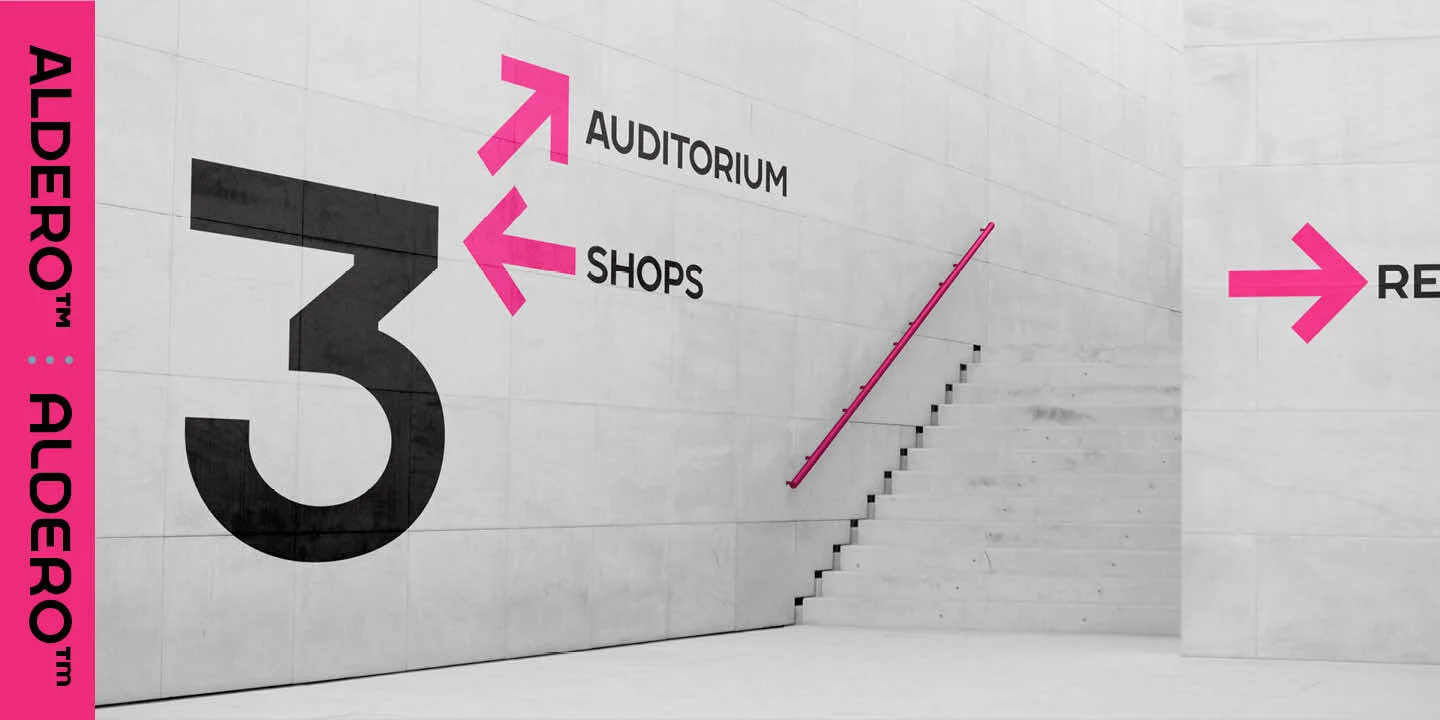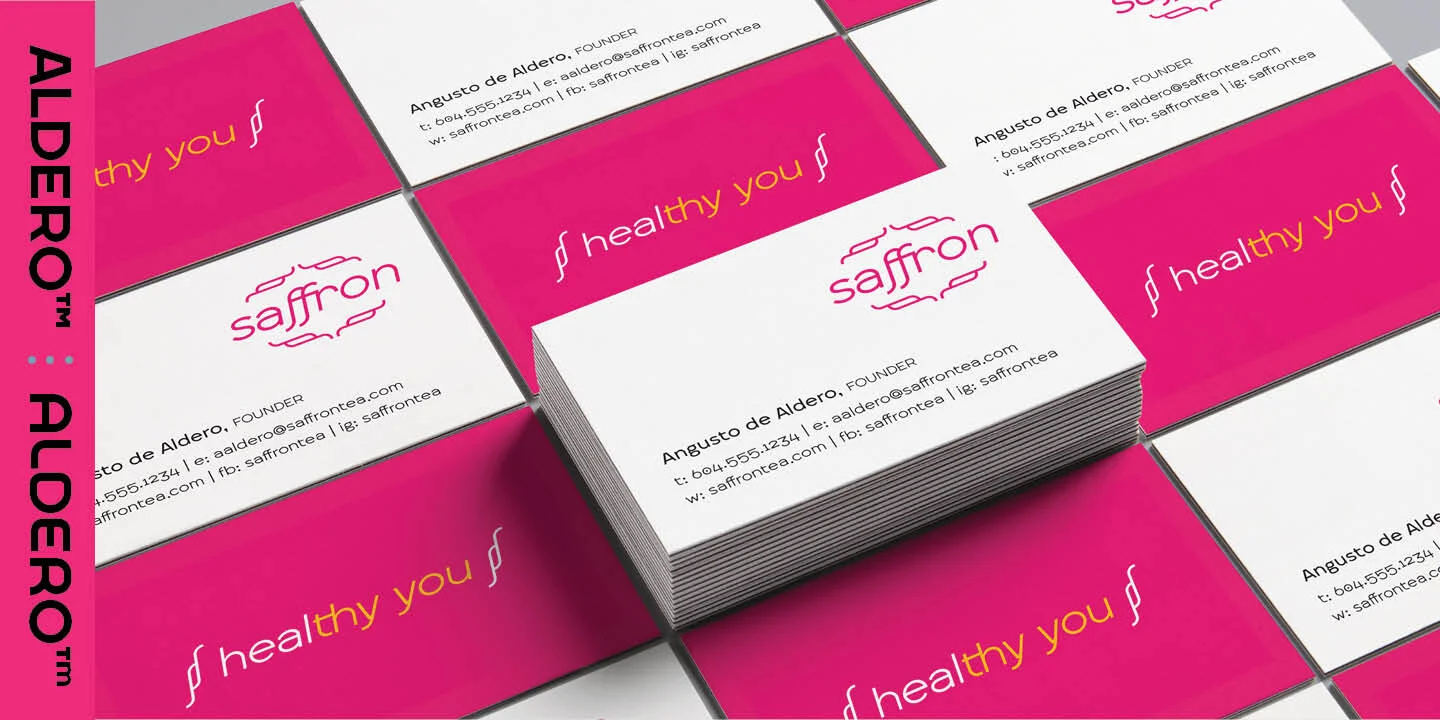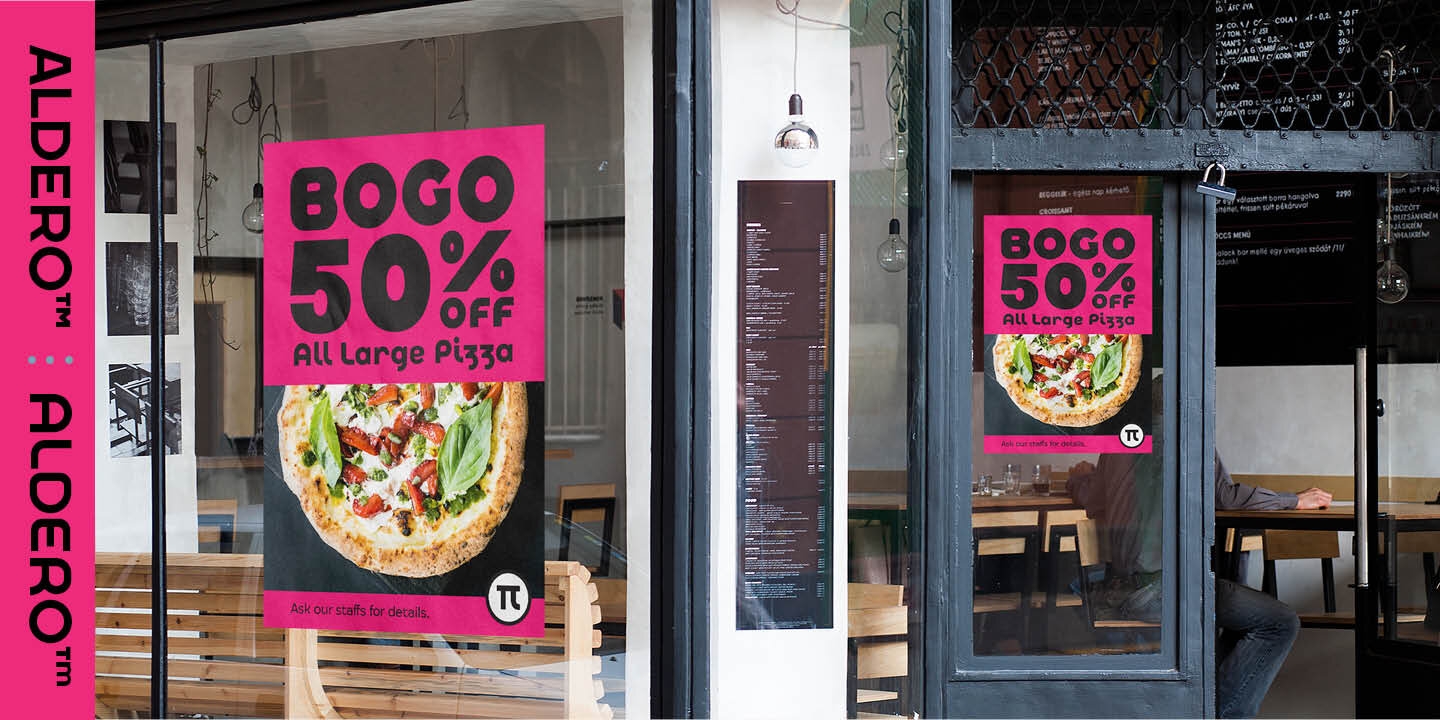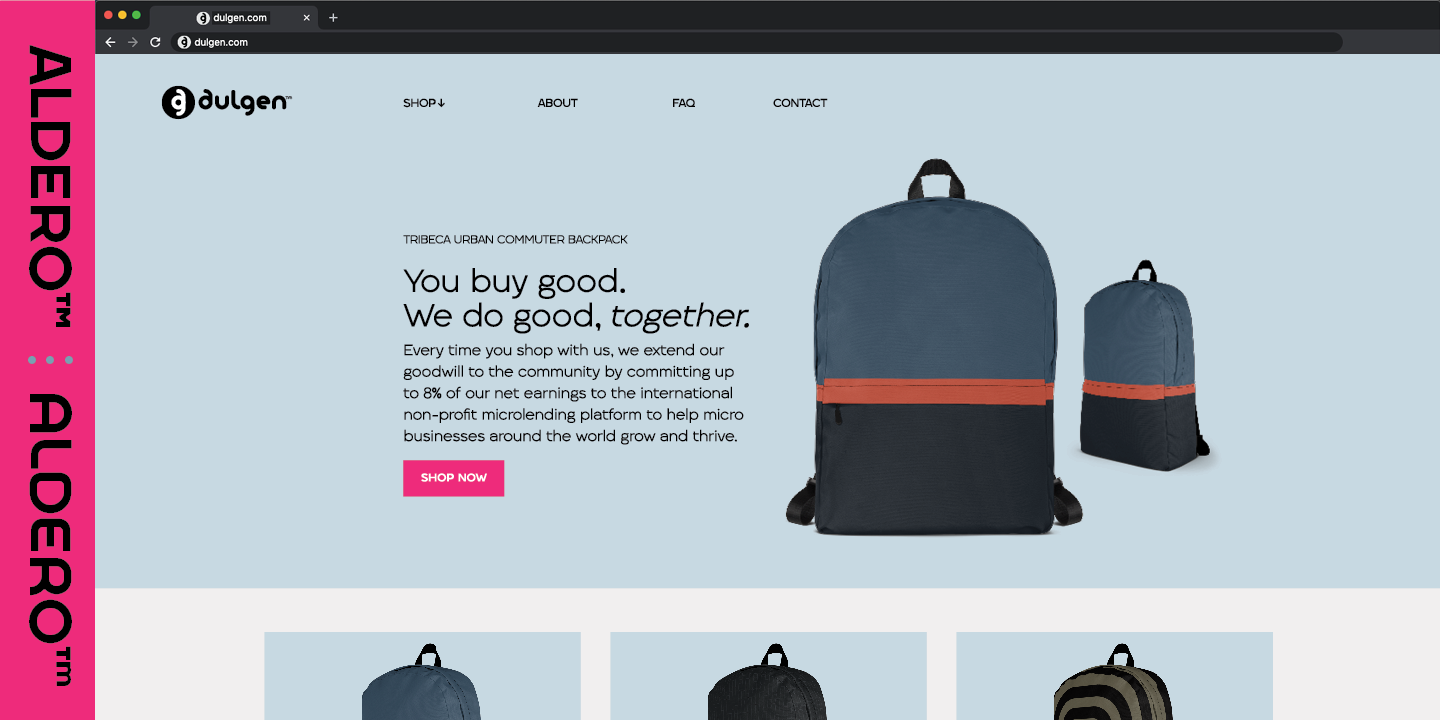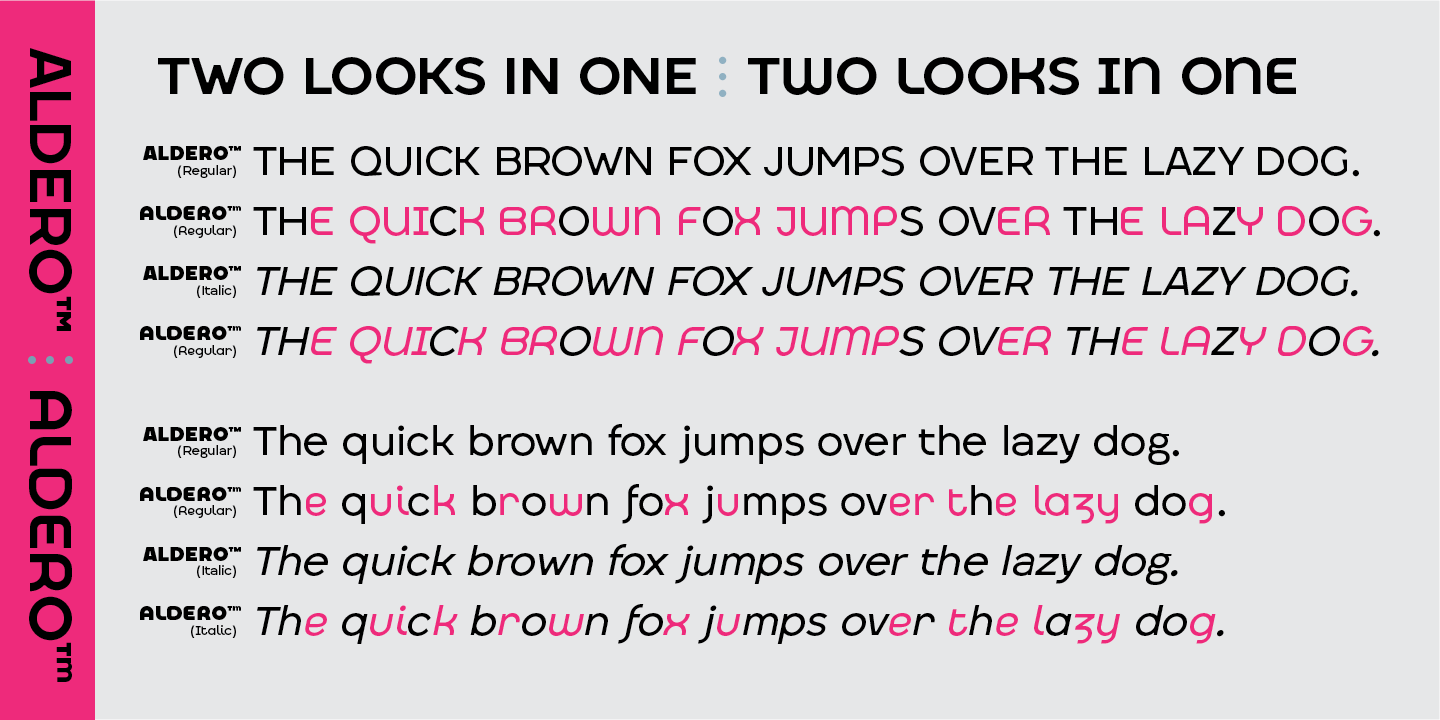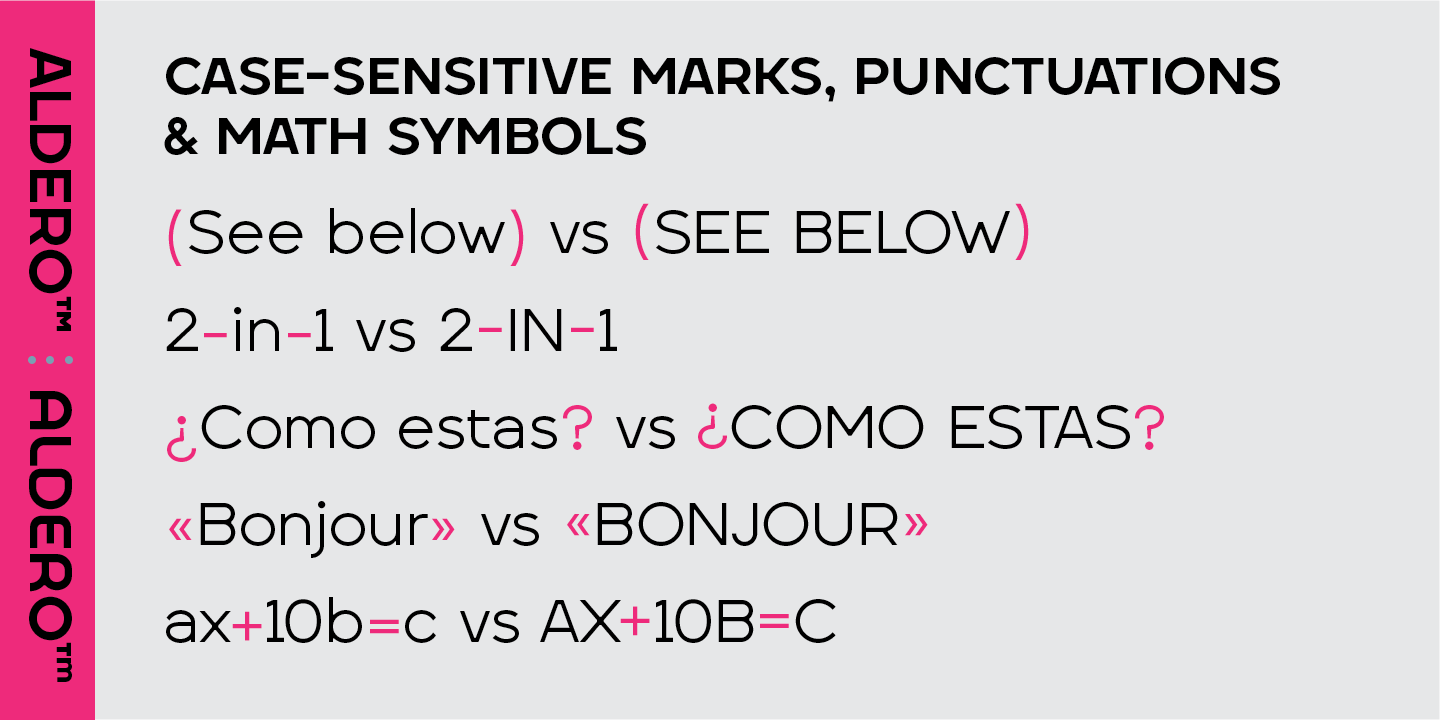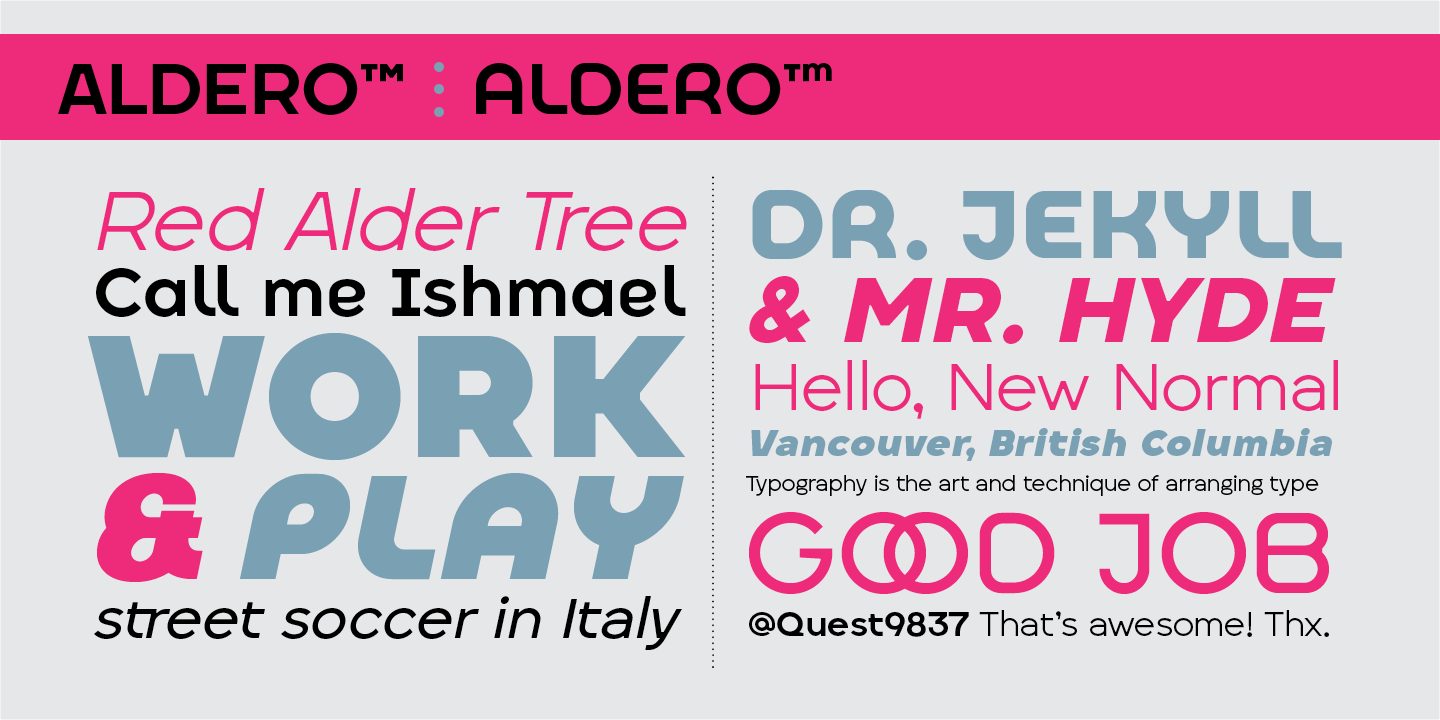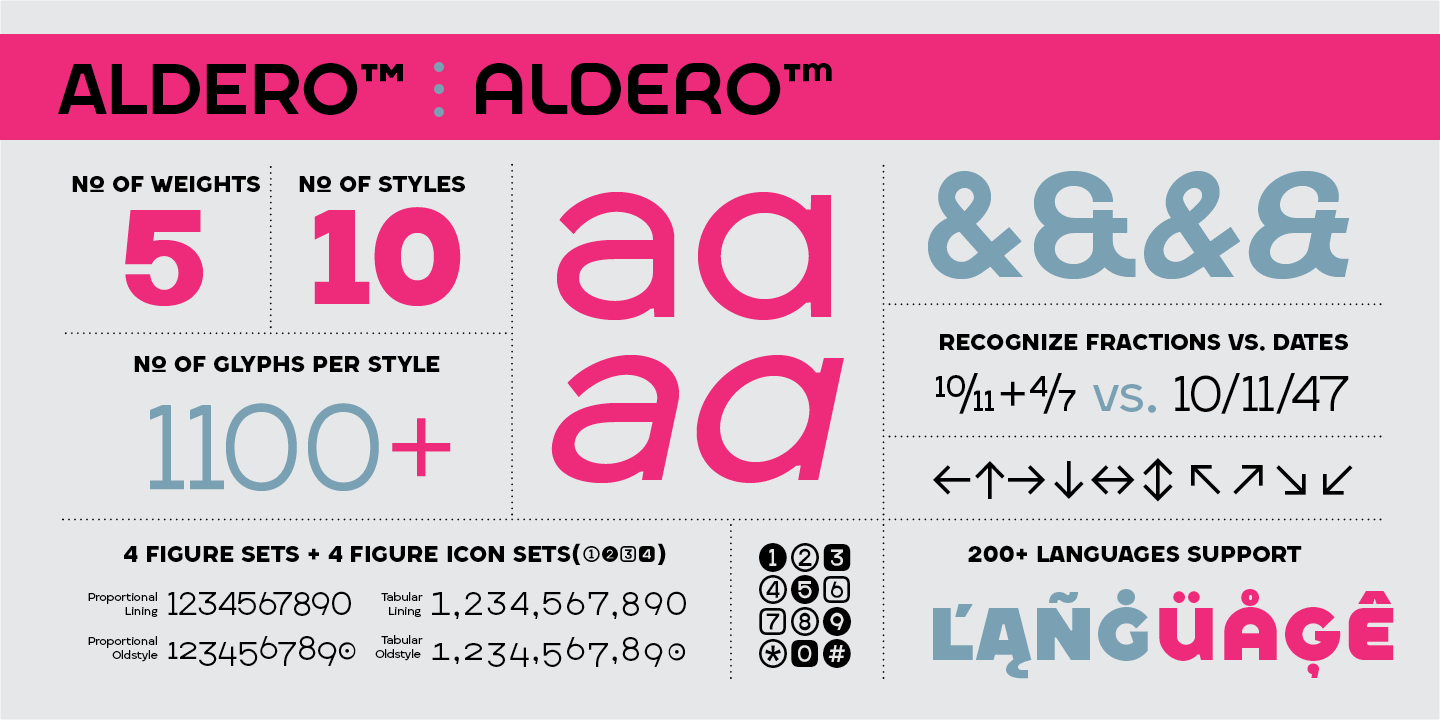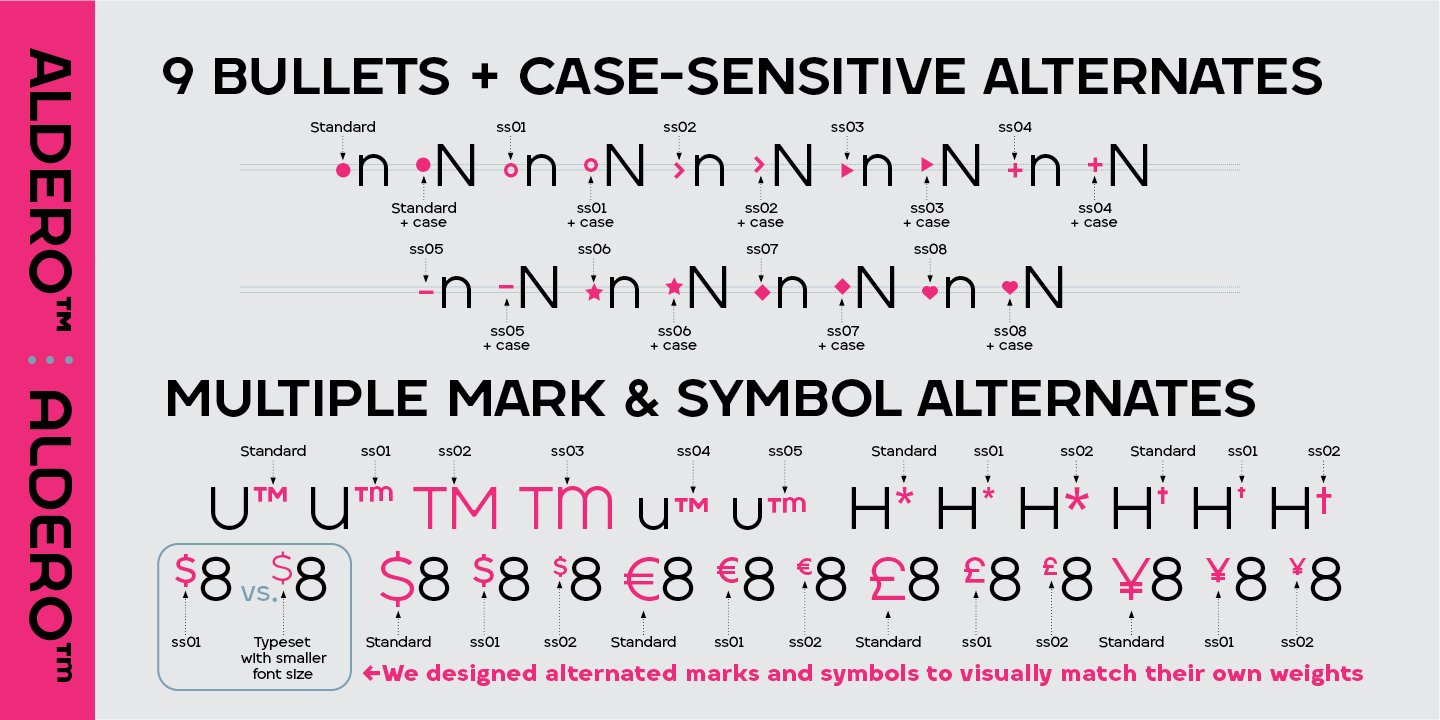
Aldero versatile sans serif font family showing its two distinct looks: formal corporate design and casual stylistic alternate.
Aldero™: A Versatile Sans Serif Font Inspired by Nature
Aldero™ is a versatile sans serif typeface inspired by the resilient Alder tree. Native to British Columbia, Canada, Alder trees are a vital part of the forest, providing food for wildlife and enriching the soil. Its utilitarian nature and role as a go-to resource in its environment inspired us to create Aldero™—a handy, 2-in-1 font family designed to be your most reliable and useful tool. By offering two distinct looks—formal and casual—this typeface is a foundational element that is always ready to adapt to your professional design needs.
Close-up view of Aldero font character curves demonstrating meticulous attention to small design details for high-quality professional use.
We pay attention to even small details of each character that you may not notice at first glance.
Aldero™ Fonts – Double the Looks. Double the Design Possibilities.
To deliver maximum versatility, we built the Aldero typeface to be your dual-purpose solution with double the sets of ligatures. With five weights, ten styles, and over 1,100+ glyphs per style, this two-in-one font family gives you powerful creative control through two distinct personalities:
• The standard glyph set is perfect for formal, corporate design, lending your project a strong and professional voice.
• The stylistic alternate set provides a completely different look, eliciting a fun, friendly, and casual feel.
You can utilize each style separately or mix and match them to achieve your unique design aesthetic, ensuring a wide range of design possibilities are always at your fingertips.
Aldero fonts showing a side-by-side comparison of the standard set for formal, corporate design and the stylistic alternate set for a friendly, casual feel.
Aldero typeface demonstration showing the formal and casual styles across regular and italic weights, highlighting different typographic variations.
Animated GIF demonstrating the seamless switching between Aldero's formal and casual looks using OpenType stylistic alternates for a flexible, 2-in-1 typeface.
Switching between the two looks is a breeze. You can even mix and match the standard glyph with the alternate look if you desire.
Aldero font feature overview showing 5 weights, 10 styles, over 1100 glyphs, and the 4 figure sets: Proportional Lining, Proportional Oldstyle, Tabular Lining, and Tabular Oldstyle.
Sample of Aldero glyphs for Roman and Italic styles, showing a range of characters, numbers, and symbols, and highlighting the alternate stylistic glyphs in pink.
Loaded with Features for Professional Use
To deliver even greater versatility, we invested significant effort into loading the Aldero typeface with advanced OpenType features. These features are engineered to directly improve your user experience and streamline your professional workflow.
This comprehensive font family comes with an abundance of features, including:
• An extensive set of case-sensitive marks, punctuations, and math symbols.
• Stylistic alternates to activate the 2-in-1 looks.
• Two sets of ligatures to help you create stunning typographic designs.
We believe you will enjoy the efficiency of working with this typeface as much as we enjoyed creating it.
Demonstration of Aldero's standard and discretionary ligatures, showcasing OpenType features that improve typographic aesthetics and professional workflow.
Aldero font family comes with two extensive sets of standard and discretionary ligatures, standard set and stylistic alternate set.
Aldero font demonstrating case-sensitive marks, punctuation, and math symbols that automatically align to uppercase text, improving professional workflow.
We even thought of small details such as Opentype features for case sensitive marks, punctuations and math symbols to streamline your workflow.
We Crafted Even Small Details Like Bullets and Superscripts.
Aldero comes with 9 bullet options and their case-sensitive alternates. It also features multiple stylistic alternates for marks and symbols so you can streamline your workflow. Crucially, our alternated marks and symbols are designed to visually match their font weight. No more skinny superscripts that don't match the rest of the type! To choose a stylistic alternate, highlight the glyph with the type tool, then select one of the options from the Opentype popup window.
Aldero font showing 9 bullet options, multiple symbol alternates, and correctly weighted superscripts for professional data presentation.
Aldero sans serif font demonstrated in a clean website homepage design for Dulgen.com, showcasing its high readability for web, UX, and UI digital application.
Aldero typeface demonstrated on a promotional sign, showcasing its bold clarity and high visibility for retail displays and marketing materials.
Aldero Bold weight typeface demonstrated in two distinct looks—formal and casual—using the word "Sustainable" to showcase the 2-in-1 style versatility.